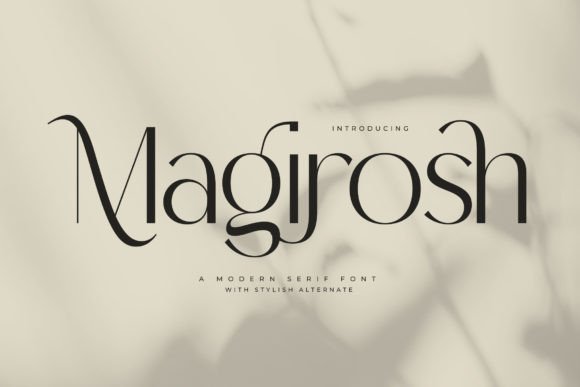
Prepare to be captivated by the allure of Magirosh, a modern and stylish serif font that will add a touch of elegance and charm to your creative projects. This exquisite font, crafted by Storytype Studio, is the perfect choice for those seeking a font that exudes luxury and sophistication.
With its unique and captivating appearance, Magirosh is the ideal choice for fashion brands, magazines, and apparel, bringing a sense of elegance to your designs. Let your words come alive with an air of sophistication as you use Magirosh to create logos, quotes, and lettering that will leave a lasting impression.
Whether you're a designer, a blogger, or simply someone who appreciates the beauty of typography, Magirosh is the perfect font to elevate your work to new heights. Its delicate serifs and graceful curves will add a touch of timeless beauty to your designs, making them stand out from the crowd.
Immerse yourself in the world of Magirosh and embark on a creative journey that will leave you breathless. Discover the endless possibilities of this remarkable font and let your imagination soar as you create designs that captivate and inspire.